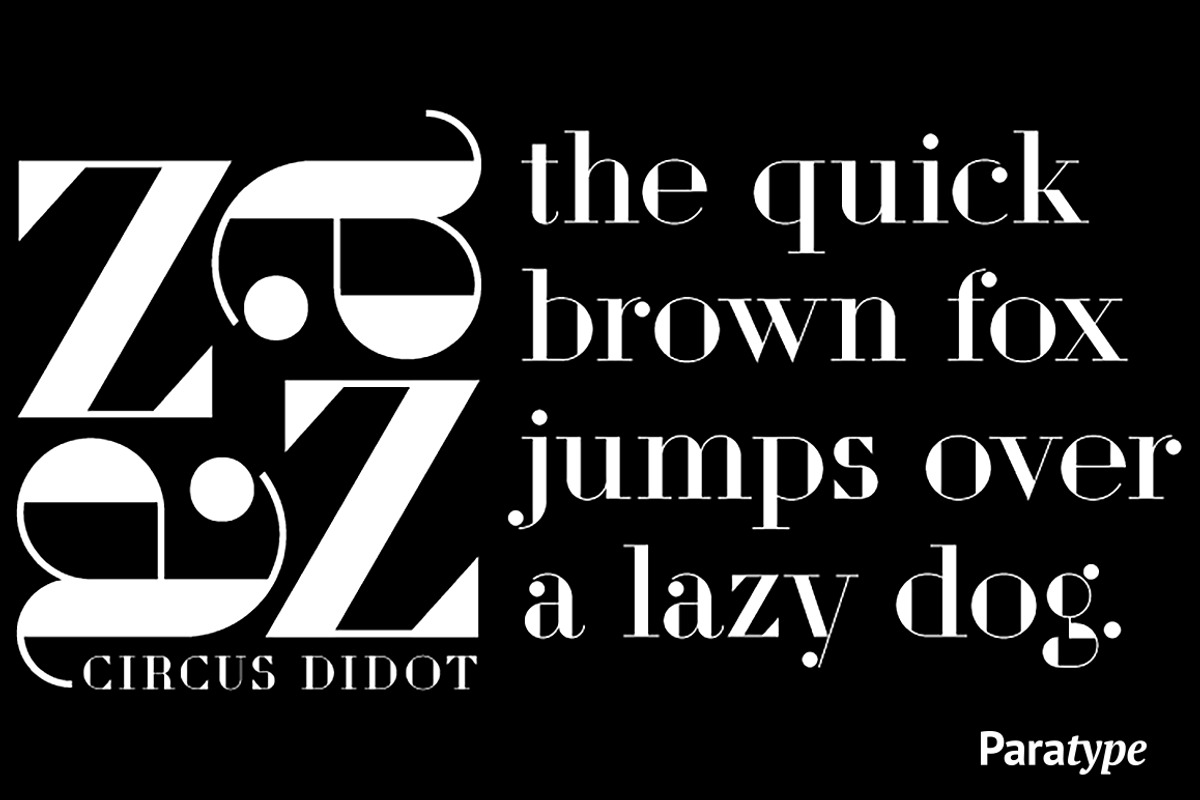
Circus Didot – Classic Serif Font
Circus Didot – Classic Serif Font is a clean and thoughtfully built typeface that works seamlessly for both professional branding and everyday creative uses. Circus Didot typeface represents a rework of a typical neoclassical serif type in a constructivist style. Analyzing the shapes of characters, the author placed basic geometric figures — triangles, rectangles, circles… above the contours of letters. The resulting letters were still recognizable and at the same time resembled the paintings of Russian avant-gardists of the 20th century. This has driven an idea to design a typeface where the rationalist and geometrical tendency of a modern serif type is realized to the greatest extent. The prototypes for the project were taken from the works of Didot, lettering experiments of Russian constructivists and art deco artworks. The technique of juggling with shapes and overall grotesque approach to the design explains the fonts’ name. Designed by Danila Orlovsky. Released by ParaType in 2010.